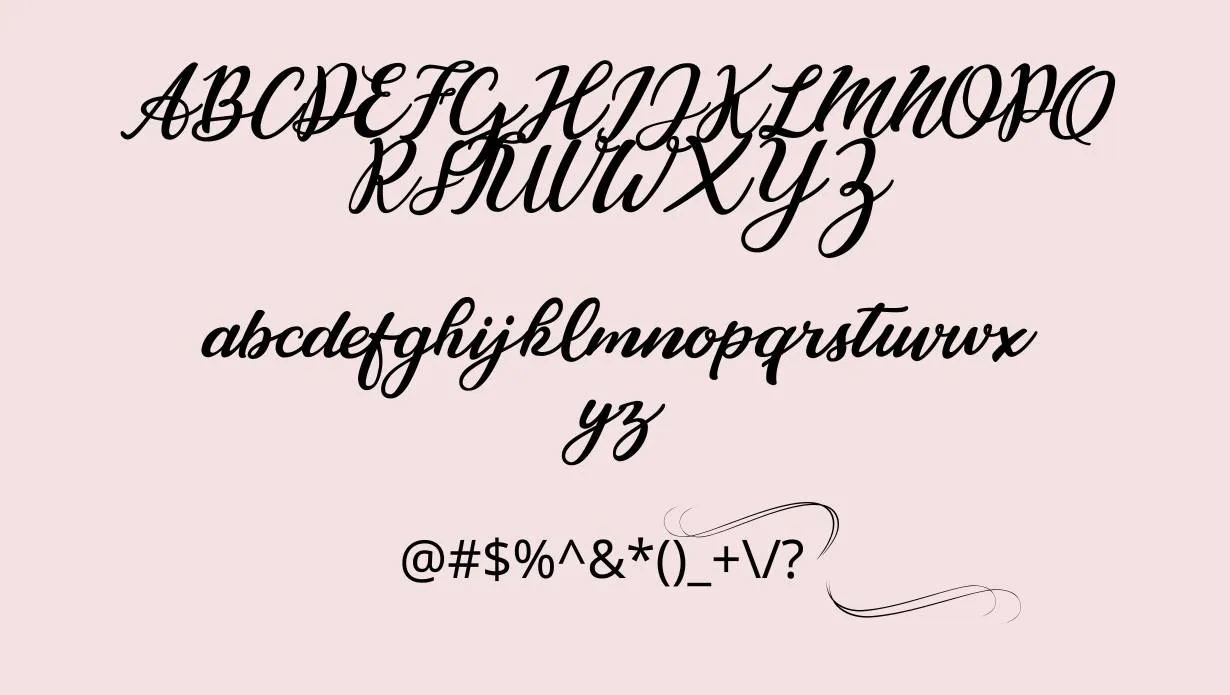
The Cassandra Font strikes a balance between modernity and grace, making it an ideal choice for projects that seek a refined and sophisticated aesthetic. Its stylish characters bring a touch of elegance to branding, creative designs, or any application where a chic appearance is desired.
| Name | Cassandra Font |
| Designer | Gert Wiescher |